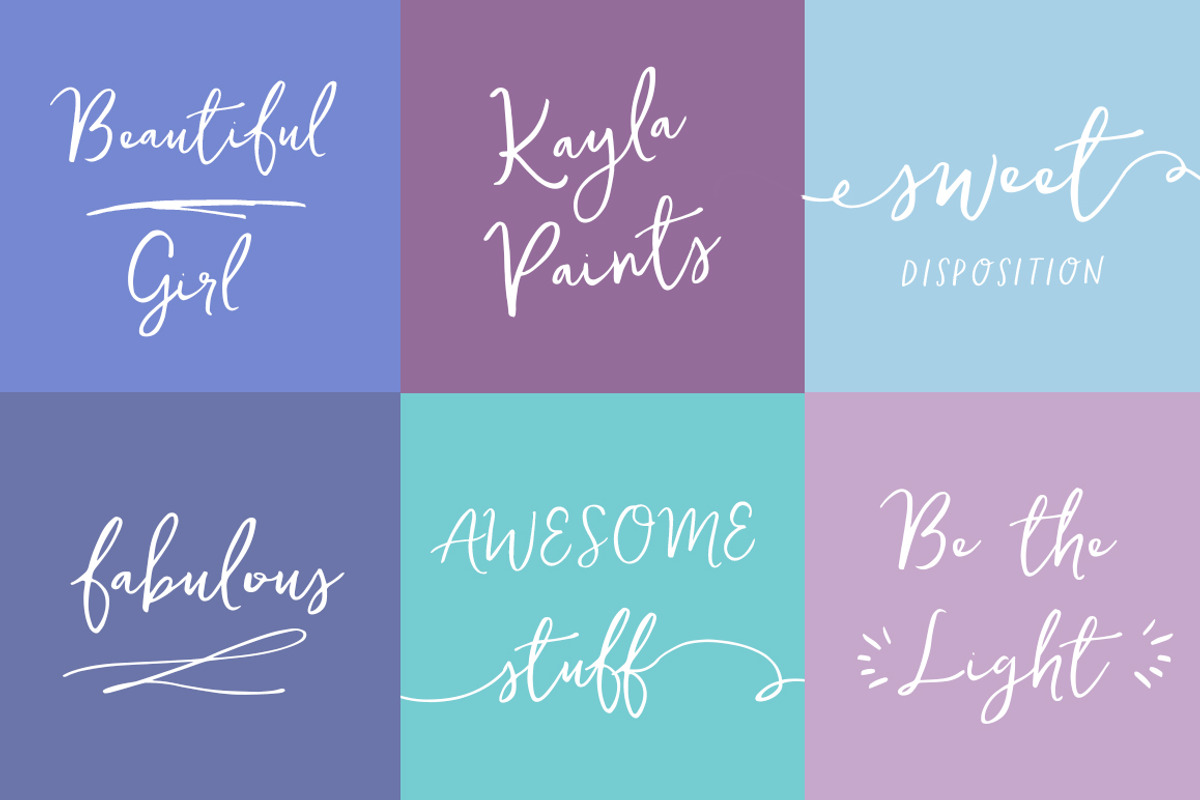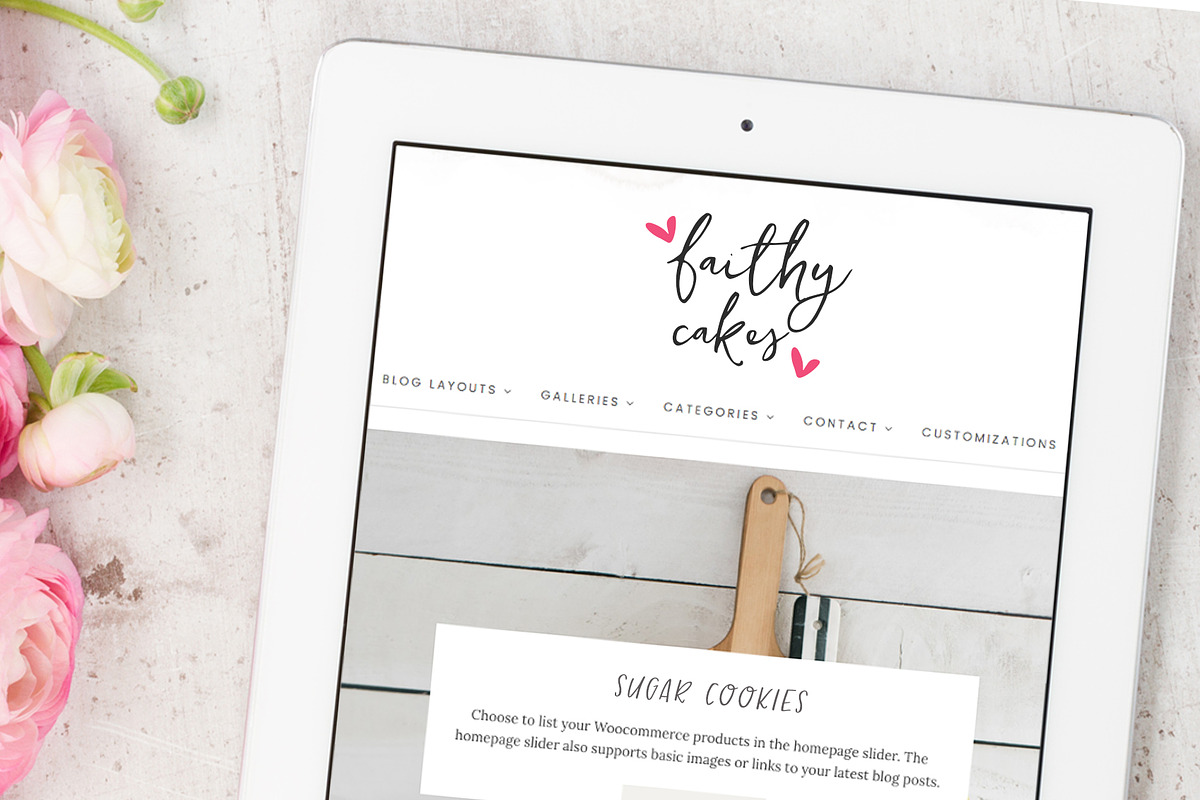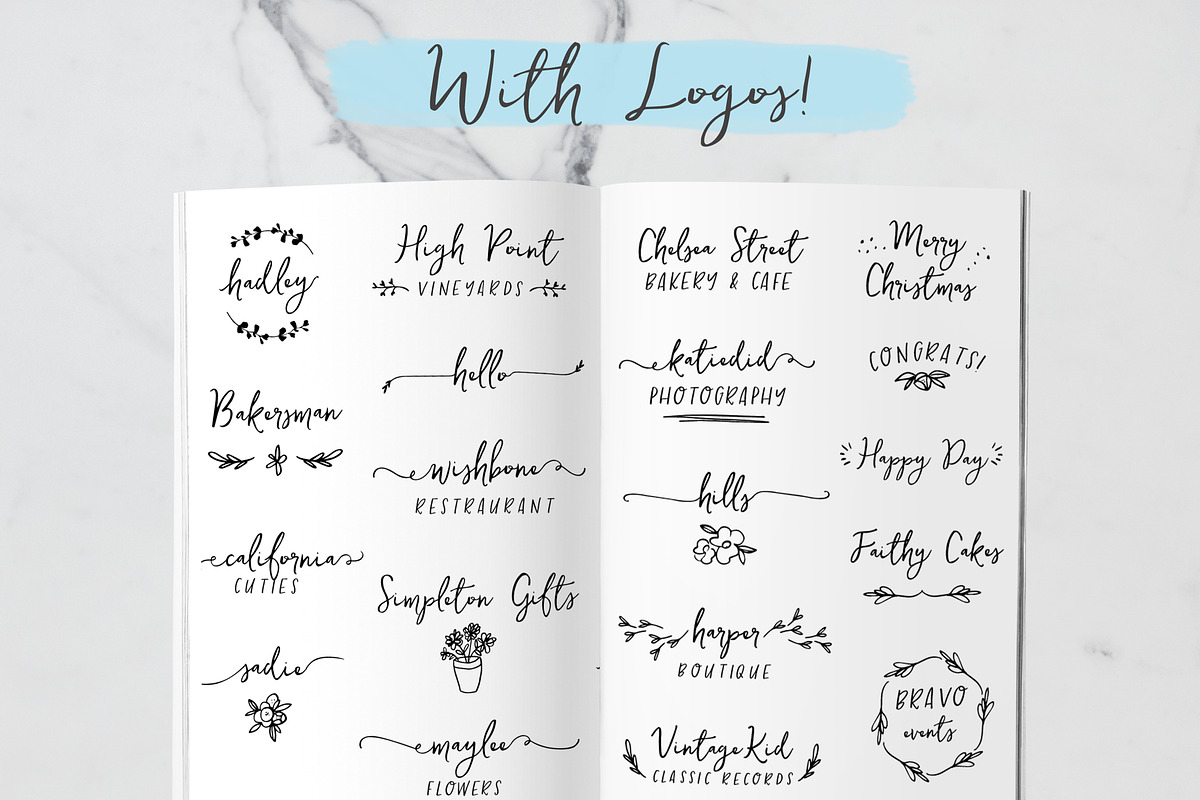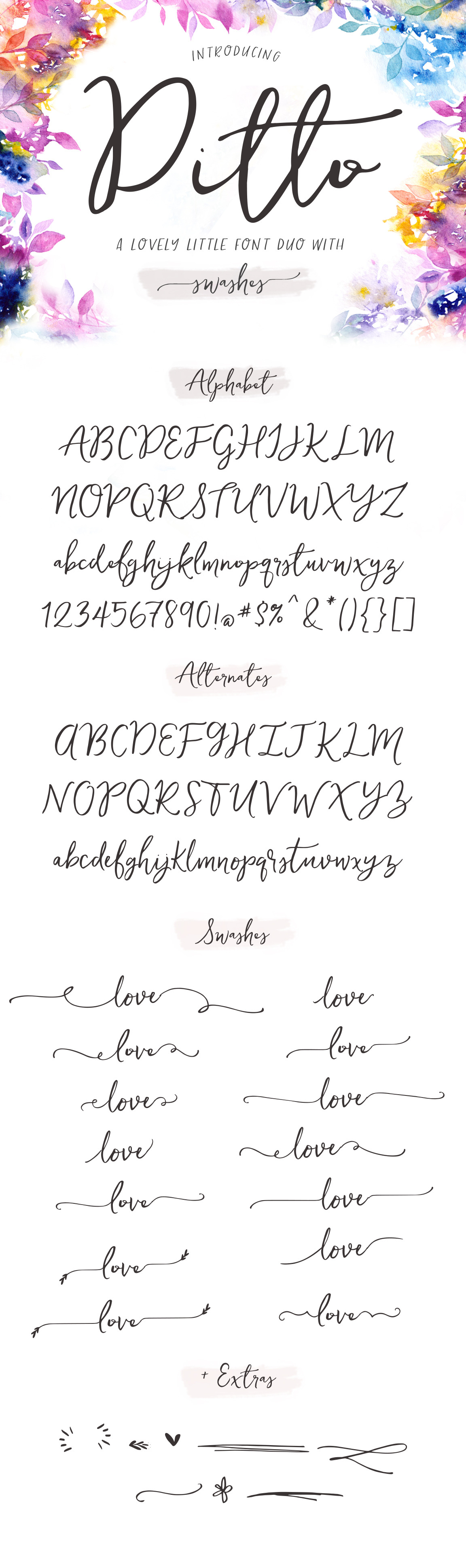
Ditto Font + Swashes
Introducing Ditto, a lovely font duo with tons of swashes and extras. Perfect for a variety of projects like branding, signage, wedding invitation, farmhouse signs, and more. So versatile with tons of character!
- Ditto Regular - A lovely, hand drawn font with tons of character and swashes galore. Comes as an .otf font file.
- Ditto Alternates - A full set of alternate uppercase and lowercase characters. Comes as an .otf font file.
- Ditto Dingbats - Some fun little doodles and swashes to pair with the fonts for some added flair. Comes as an .otf font file.
- Duckbite Sans - A handy little sans-serif font that pairs well with my Duckbite font and Ditto.
Font features include stylistic alternates and natural ligatures.